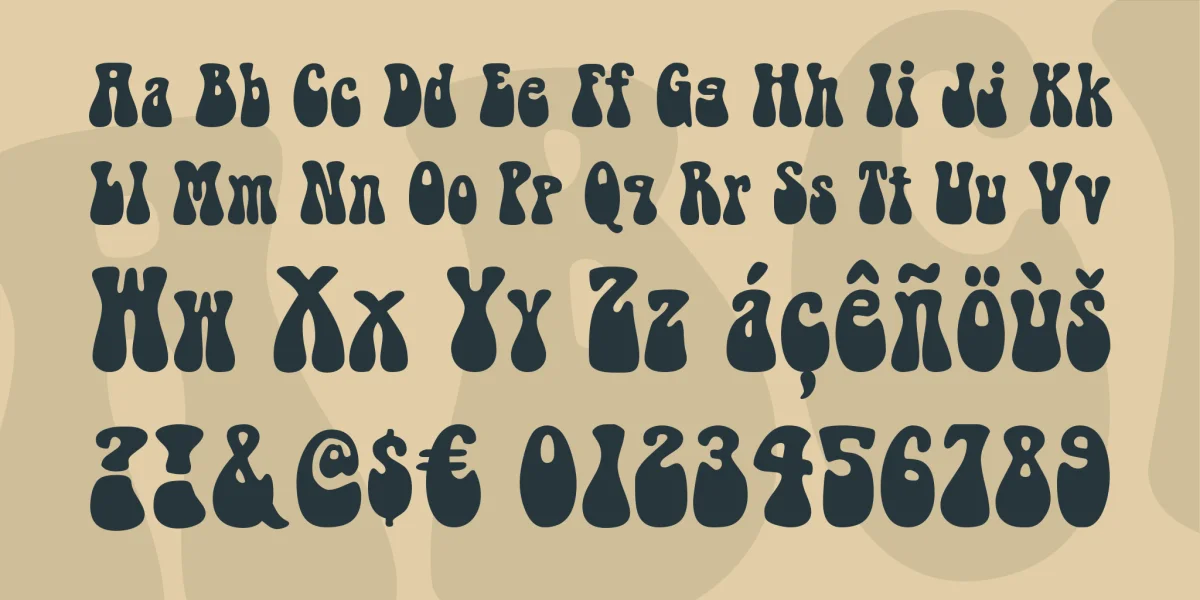
Bellybottom is a bulging and curvy display typeface breathing the relaxed and easy-going spirit of the flower power generation. Originating from the nineteen-seventies it was redrawn and amplified with accented characters, symbols and punctuation and made available for both personal and commercial use by Fontgrube Media Design. Extensive use of kerning pairs provide proper spacing, so make sure you have kerning turned on.For redistribution see the license regulations.